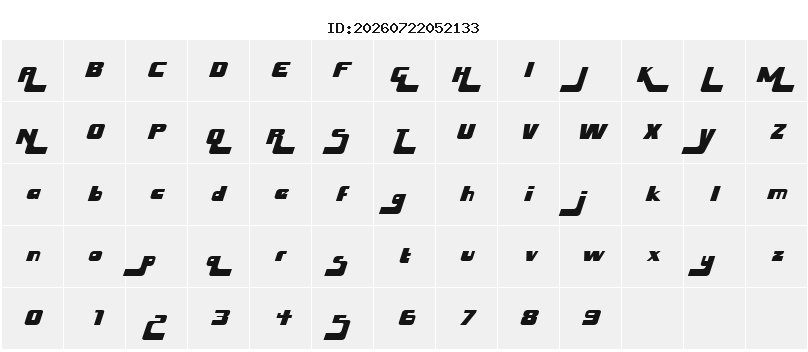
• Font Name: Husky Stash
Husky Stash.ttf is a modern, elegant sans-serif font designed for ultimate readability and visual harmony. Perfect for branding, headlines, web design, and print materials.